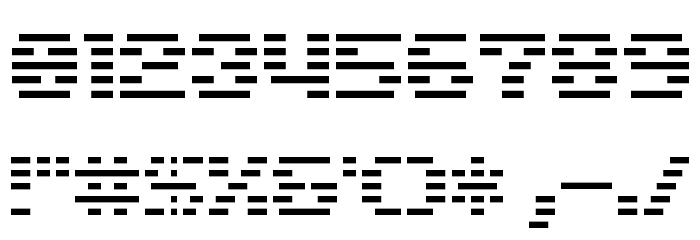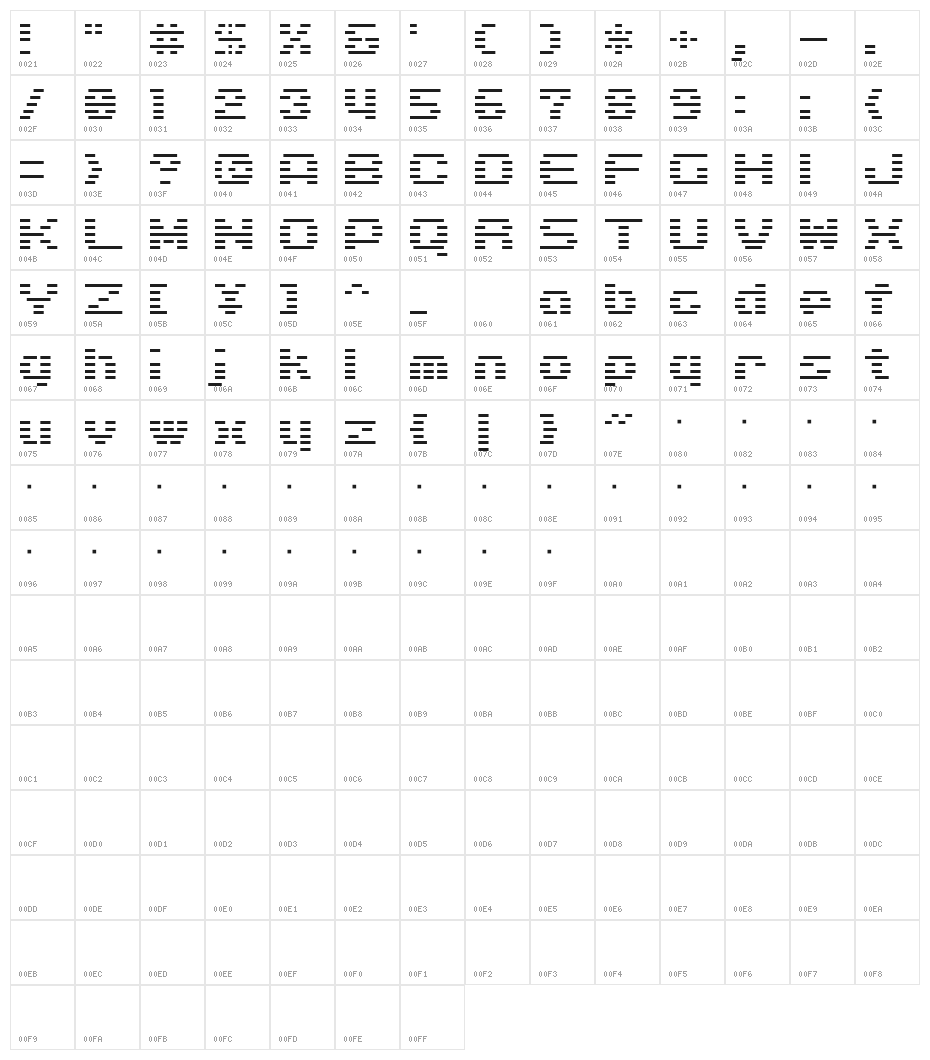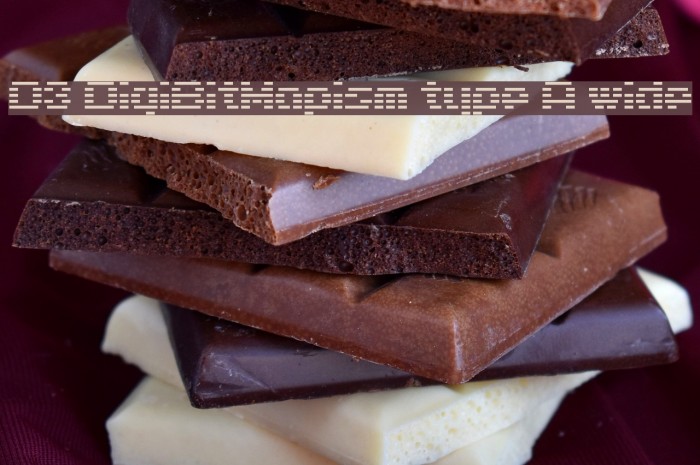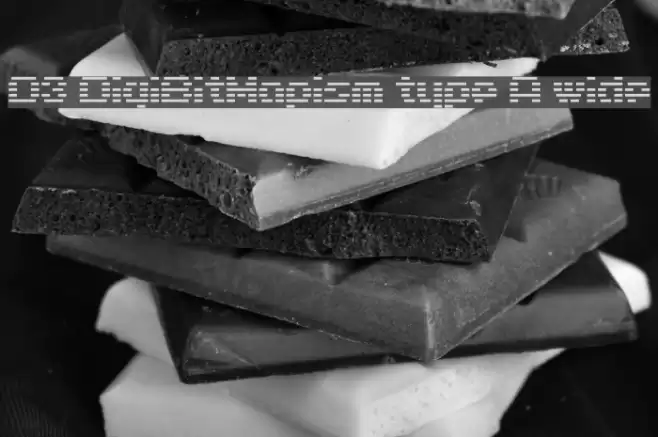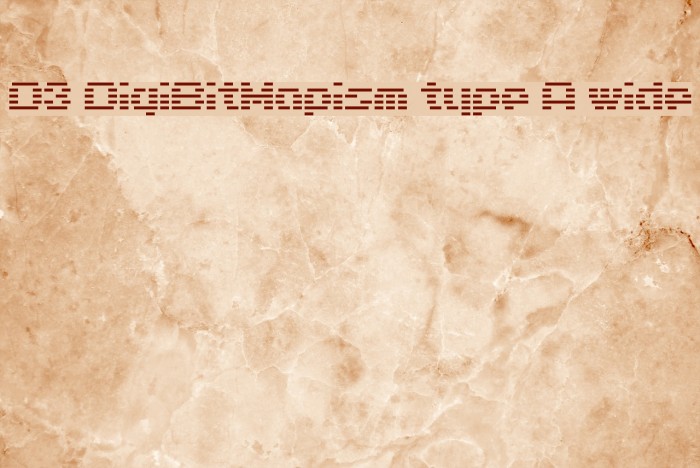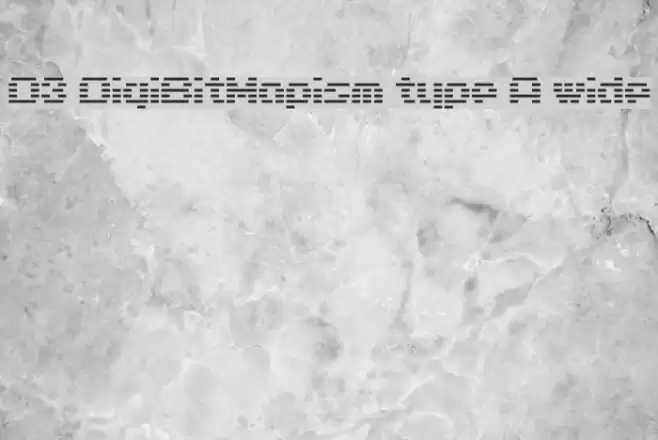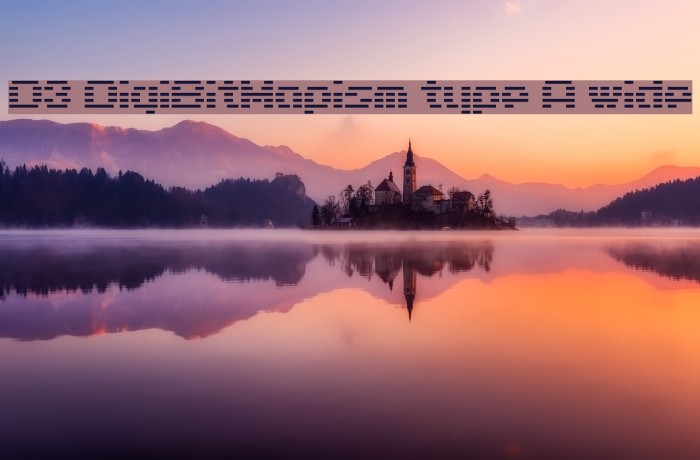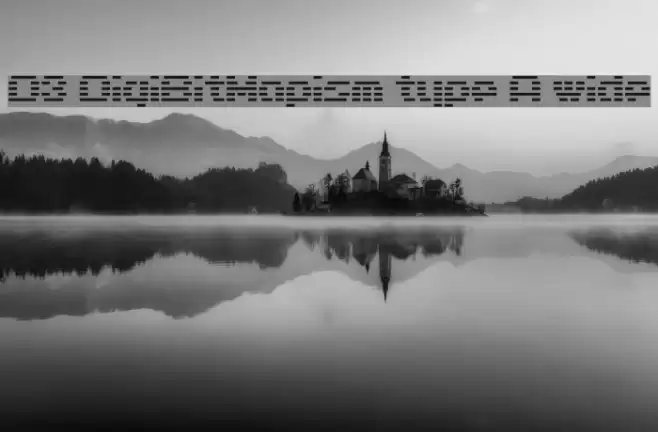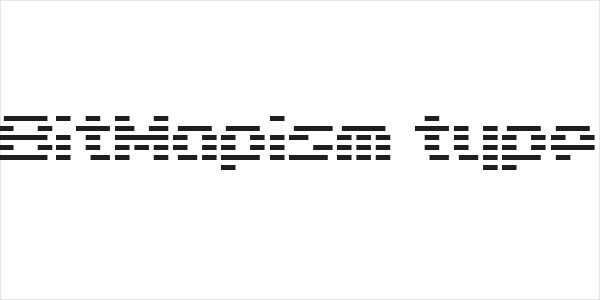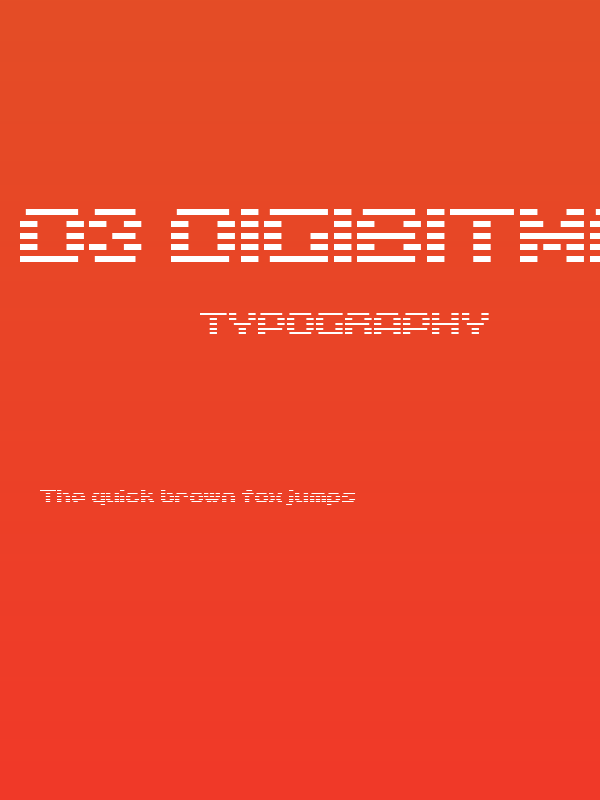
D3 DigiBitMapism type A wide Font
D3 DigiBitMapism type A wide Description
This font features a distinctive digital aesthetic, characterized by its pixelated, bitmap style. The characters are composed of horizontal and vertical lines, creating a grid-like appearance reminiscent of early computer displays. Each letter and number is constructed with a series of small, uniform blocks, giving it a structured and mechanical feel. The font maintains a consistent height across all characters, with a uniform width that enhances its digital look. The spacing between characters is tight, contributing to a compact and cohesive visual flow. This font is ideal for projects that aim to evoke a sense of nostalgia for retro technology or digital interfaces.
| Use Case | Logos, Headlines, Digital interfaces |
| Proposed Projects | Ideal for retro-themed designs, digital art projects, video game interfaces, and tech-related branding. |